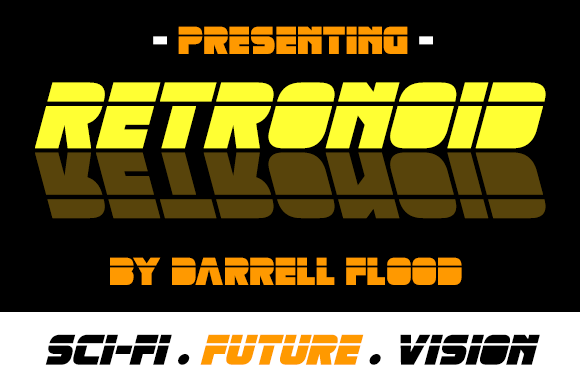
Journey back to the future with Retronoid Font, the ultimate display font that captures the essence of retro gaming and space exploration. Immerse yourself in the nostalgic charm of 8-bit graphics and relive the golden age of arcade classics.
Retronoid Font's bold, blocky design oozes retro vibes, making it the perfect choice for projects that require a touch of vintage flair. Whether you're creating eye-catching posters, designing retro-themed websites, or crafting captivating social media graphics, Retronoid Font will add an instant dose of nostalgia and personality.
Transport your audience to a world of pixels and high scores with Retronoid Font. Its solid, ultrabold style commands attention, demanding to be seen and remembered. Unleash your creativity and let Retronoid Font take you on an adventure through time, where retro meets modern and the past blends seamlessly with the present.
As a display font, Retronoid Font excels in headlines, logos, and promotional materials. Its bold presence cuts through the clutter, ensuring your message stands out from the crowd. Let Retronoid Font be your secret weapon for grabbing attention and leaving a lasting impression on your audience.
So, embrace the retro revolution and let Retronoid Font be your guide. Download it today and embark on a creative journey that blends the past and present, the classic and the contemporary. With Retronoid Font by your side, your designs will radiate an aura of nostalgia, leaving your audience captivated and longing for more.